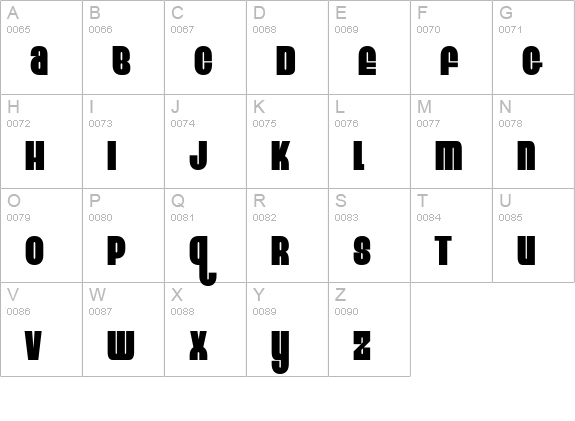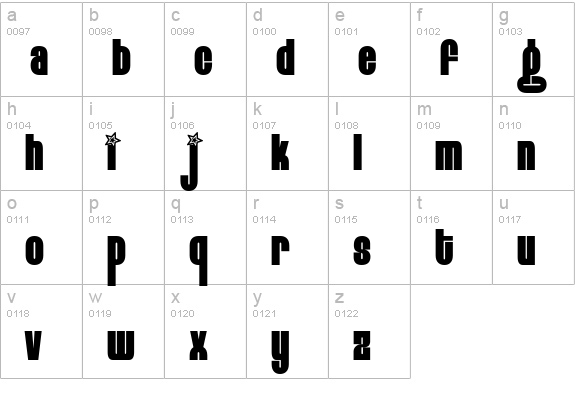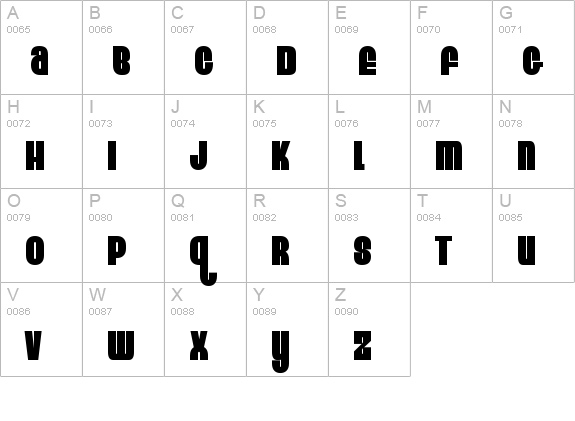
Eight Track program two Font Details
Introducing Eight Track Program Two font, a stunning display typeface that exudes a retro and nostalgic vibe perfect for any project seeking a touch of vintage charm. This font features bold, chunky letterforms with a distinct 70s aesthetic, making it ideal for posters, album covers, and other design projects that require a bold statement. What makes Eight Track Program Two font even more enticing is that it is available for free download at FontsMarket.com. Yes, you read that right - this unique and eye-catching font can be yours at no cost, allowing you to add a touch of retro flair to your designs without breaking the bank. Don't miss out on this fantastic opportunity to enhance your creative projects with a font that stands out from the crowd. Download Eight Track Program Two font today and let your creativity shine!